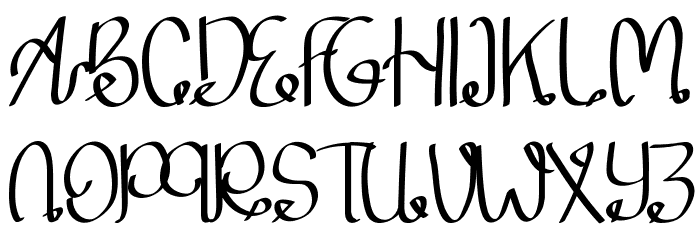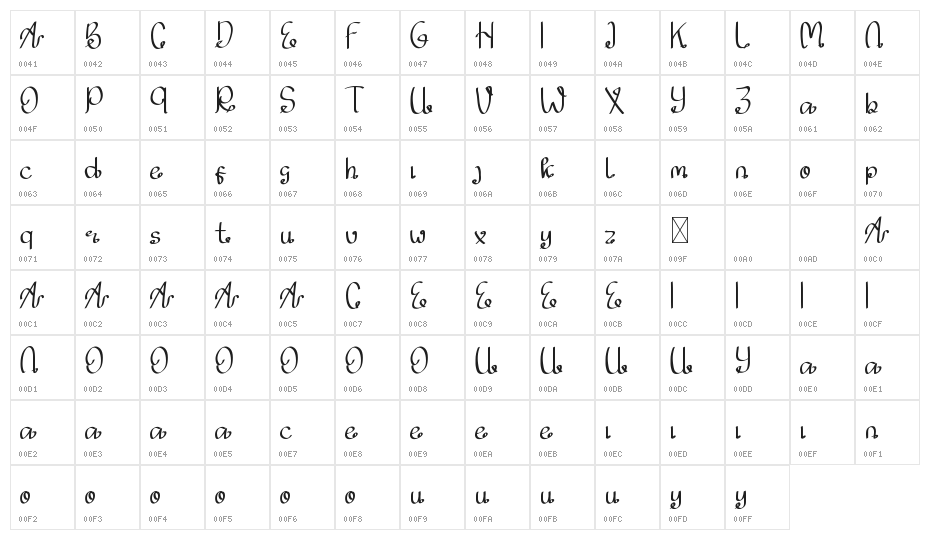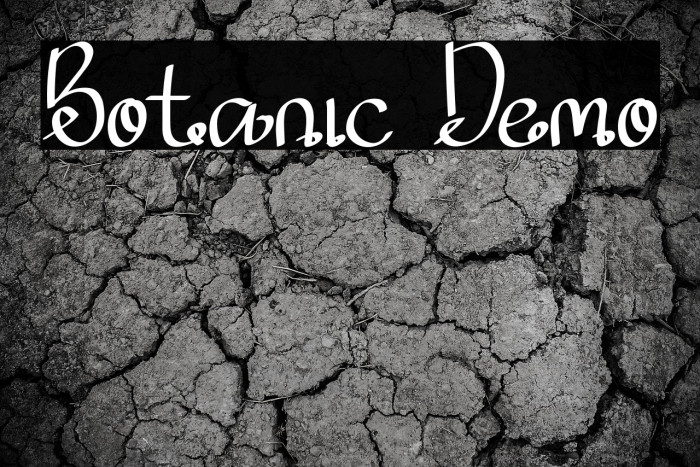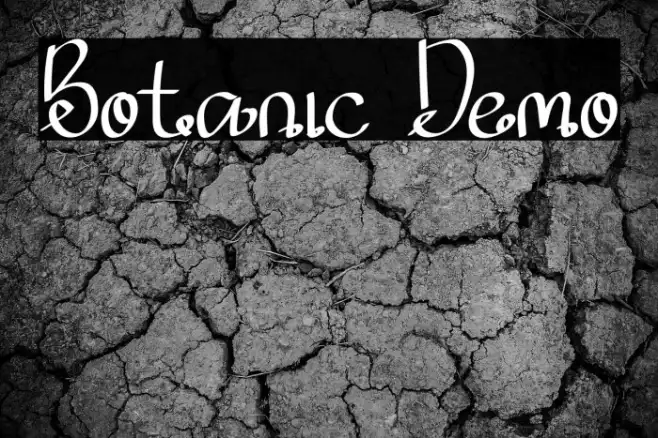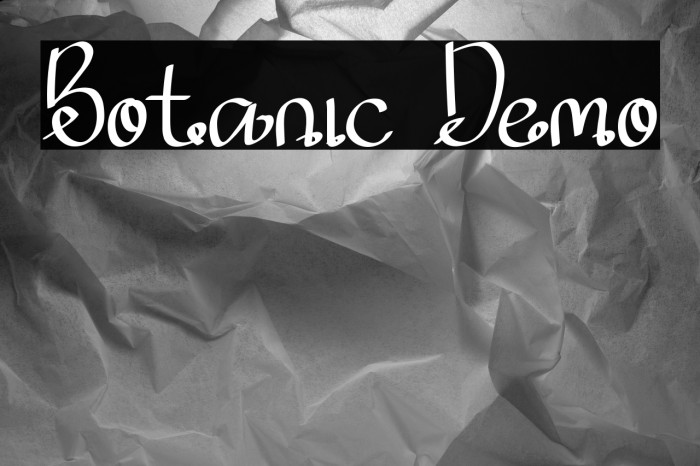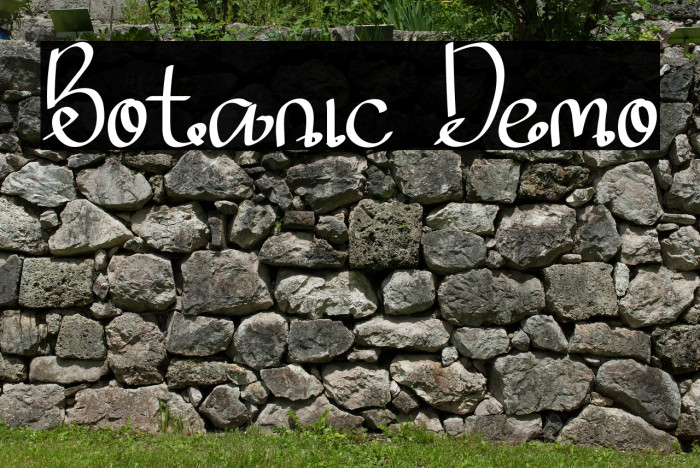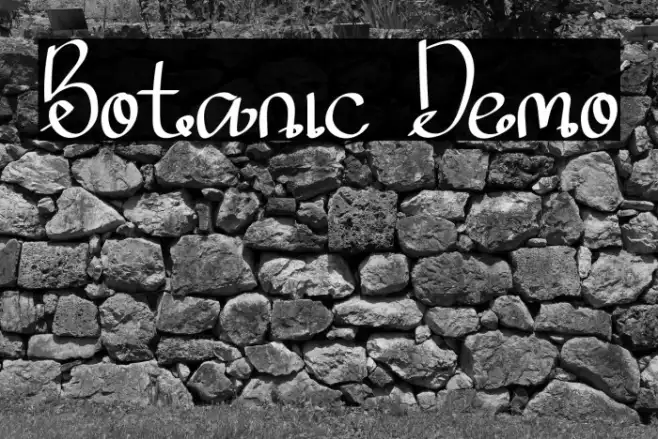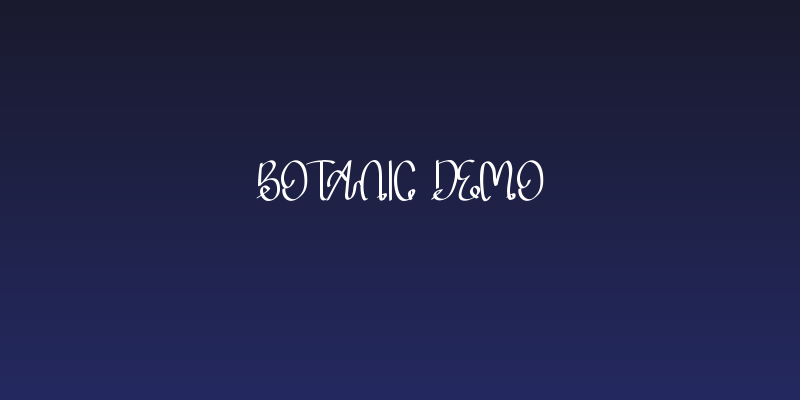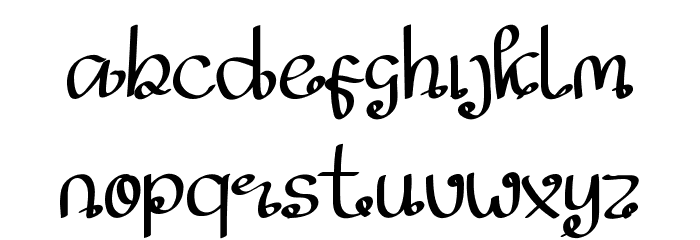
Botanic Demo Font
Botanic Demo Description
This font features a unique and artistic style, characterized by its flowing, cursive-like script with decorative elements. The letters are interconnected with elegant swirls and loops, giving it a whimsical and organic feel. The uppercase and lowercase letters maintain a consistent style, with each character exhibiting a playful yet sophisticated design. The font's intricate details and fluid strokes make it stand out, offering a sense of creativity and elegance. It is well-suited for projects that require a touch of artistry and flair, such as invitations, greeting cards, or branding materials that aim to convey a sense of uniqueness and charm.